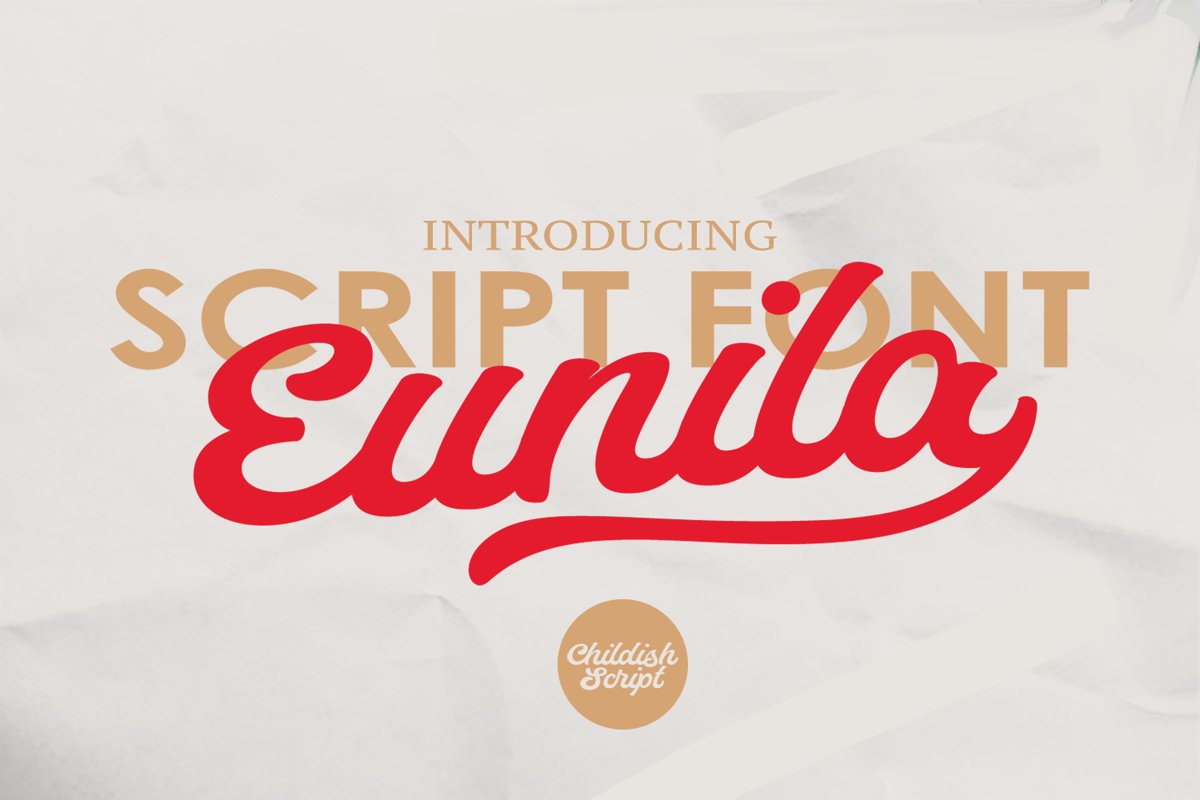
Eunila Script
is a script handwritten brush font. Its unique flow and style makes it perfect to use for prints, logos, logos & branding, invitations, stationery, wedding designs, social media posts, advertisements, product packaging, product designs, labels, photography, watermarks, special events or anything.